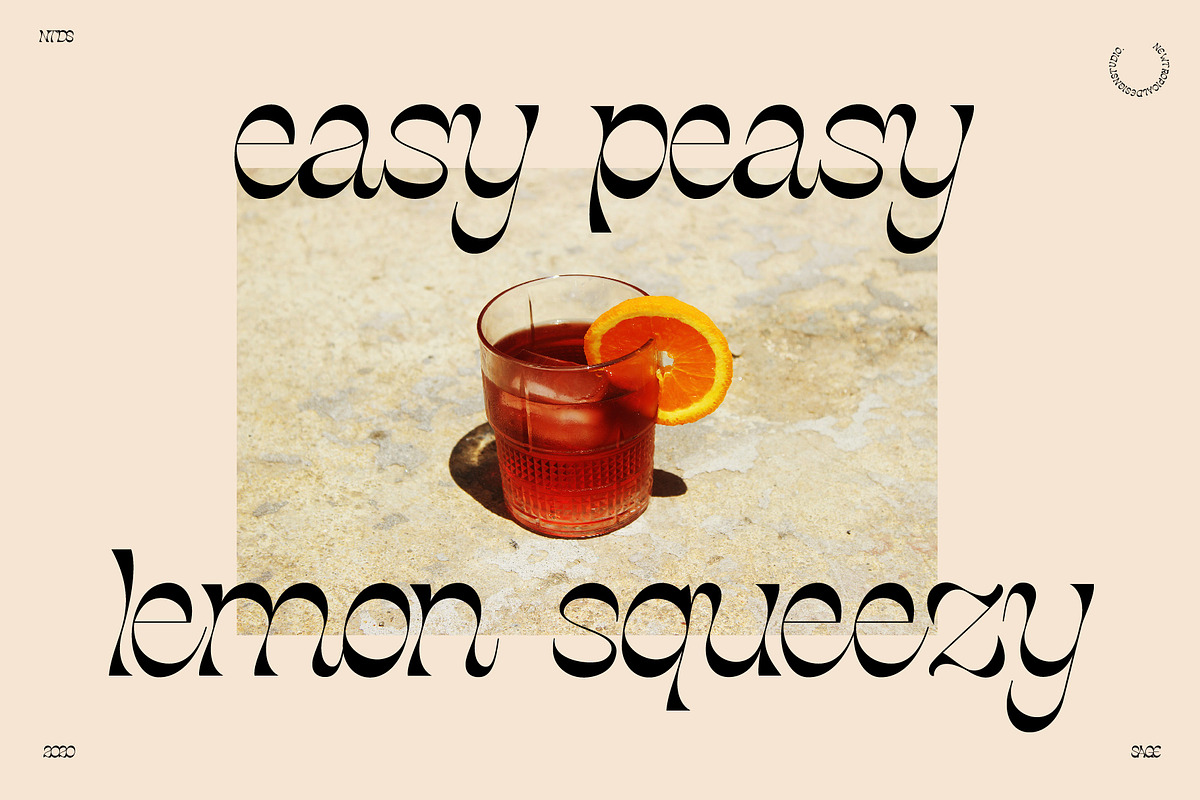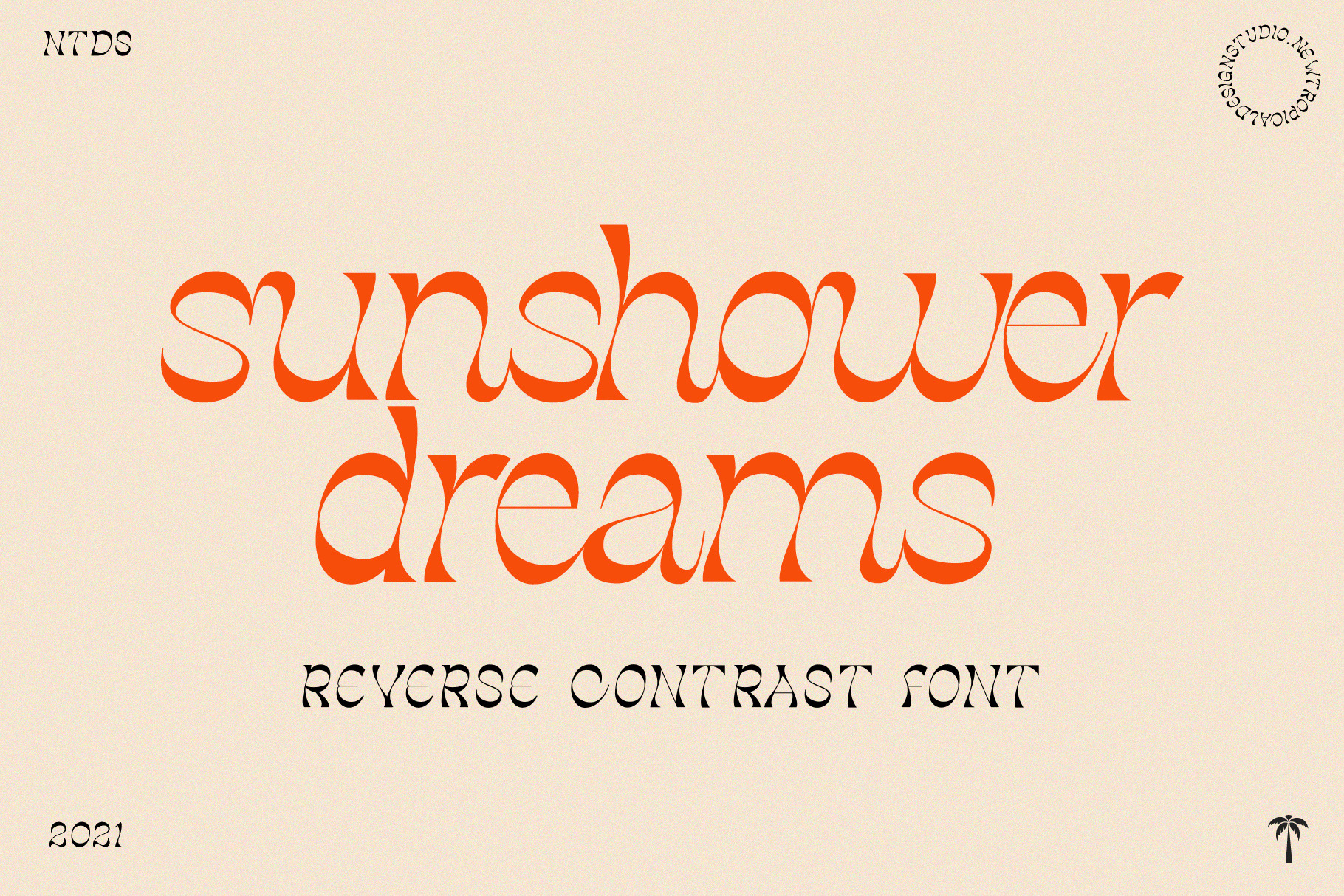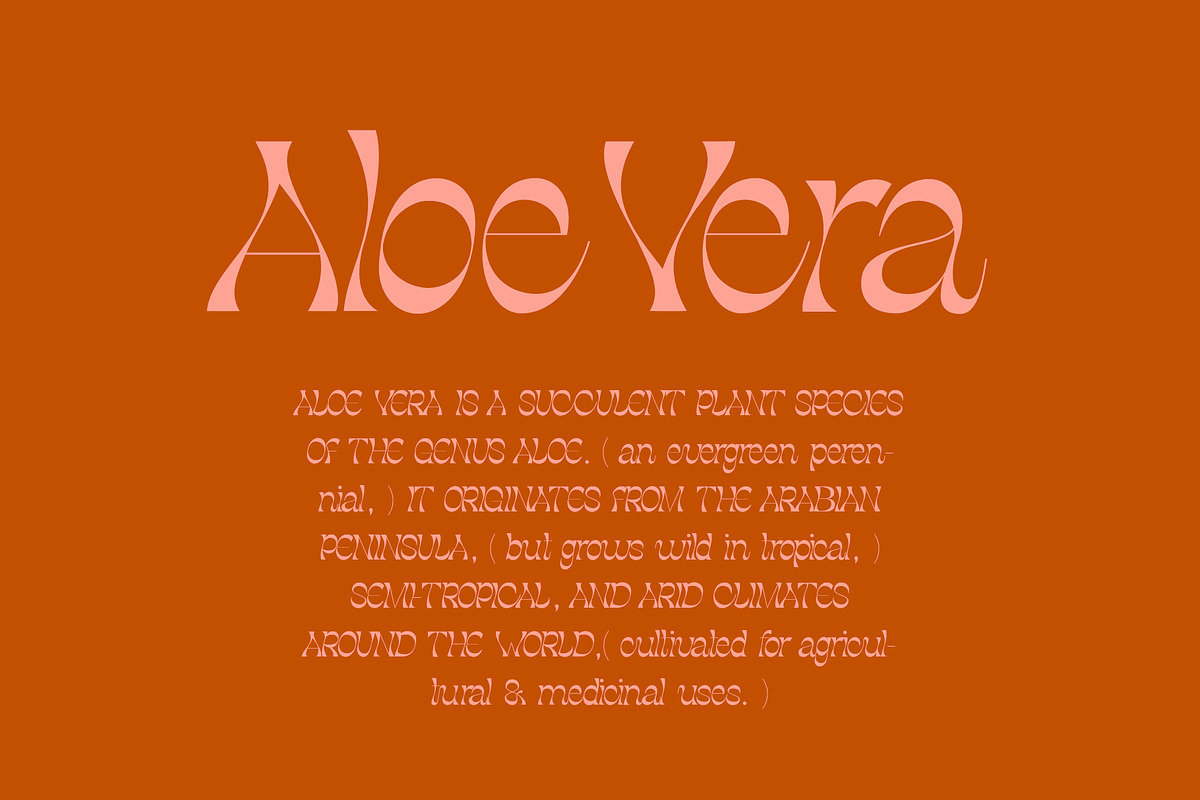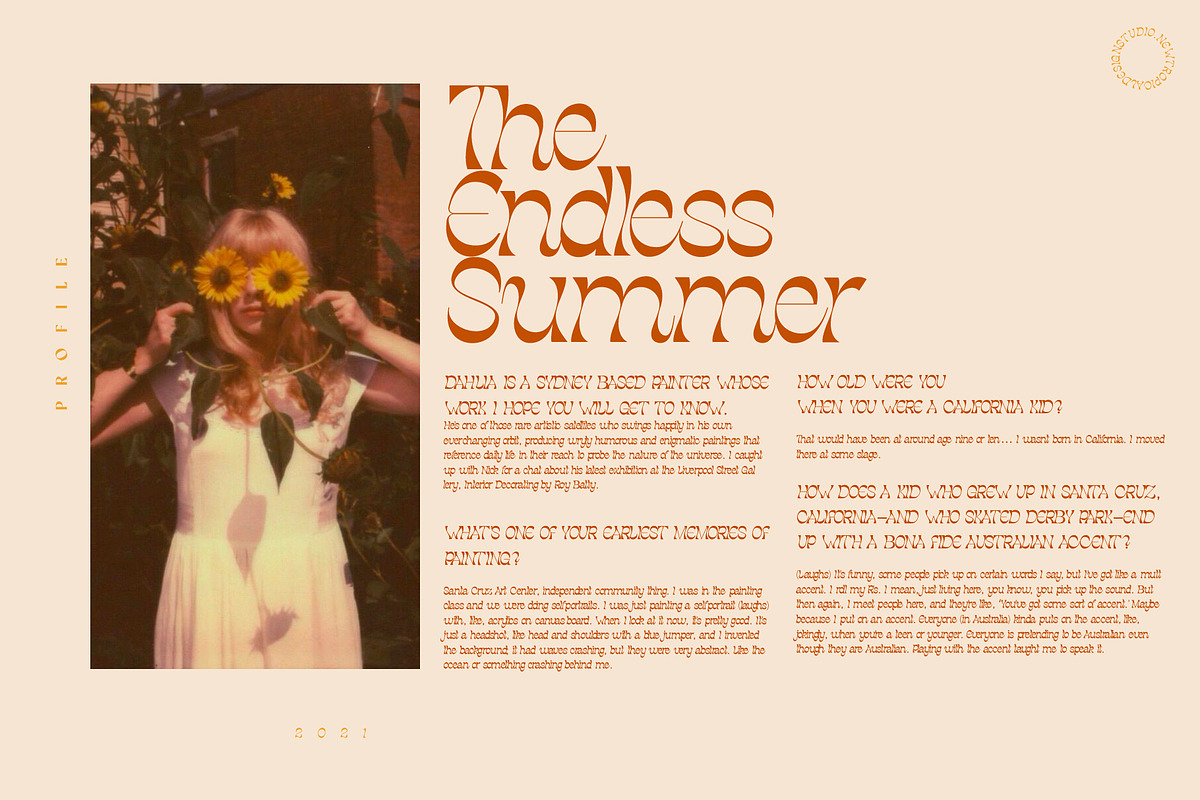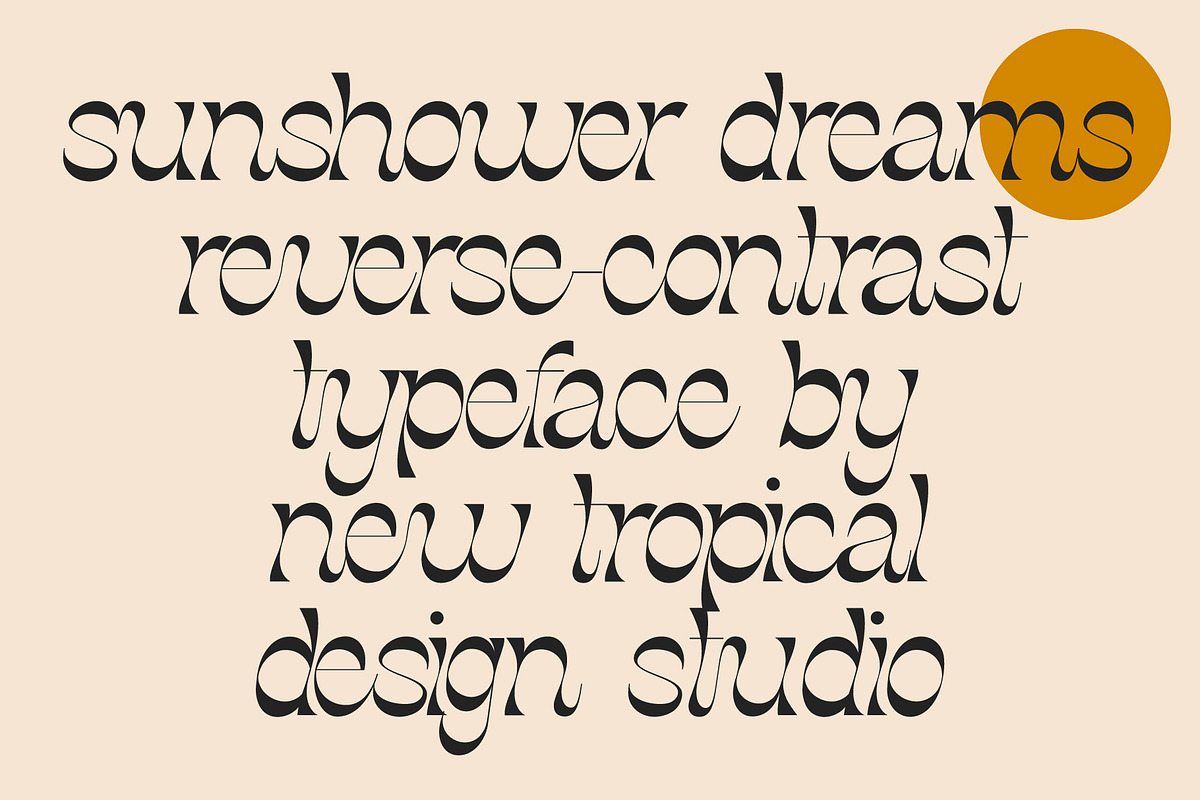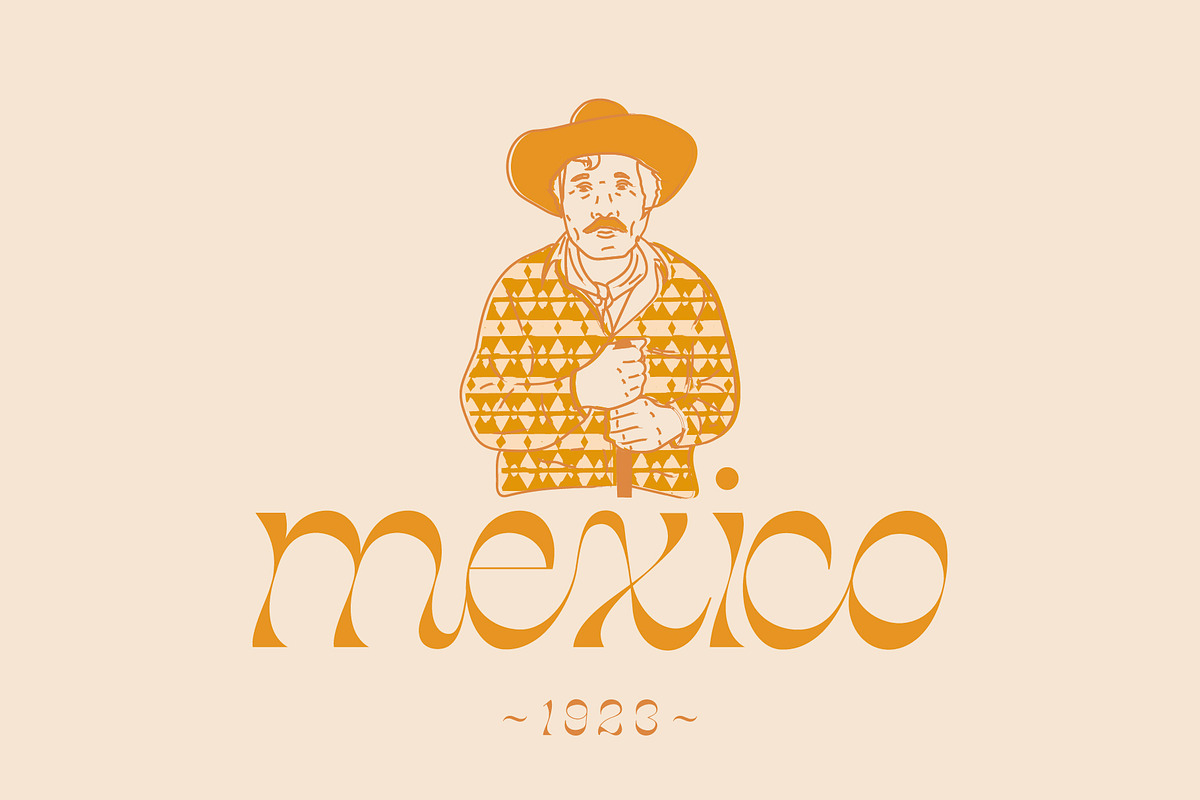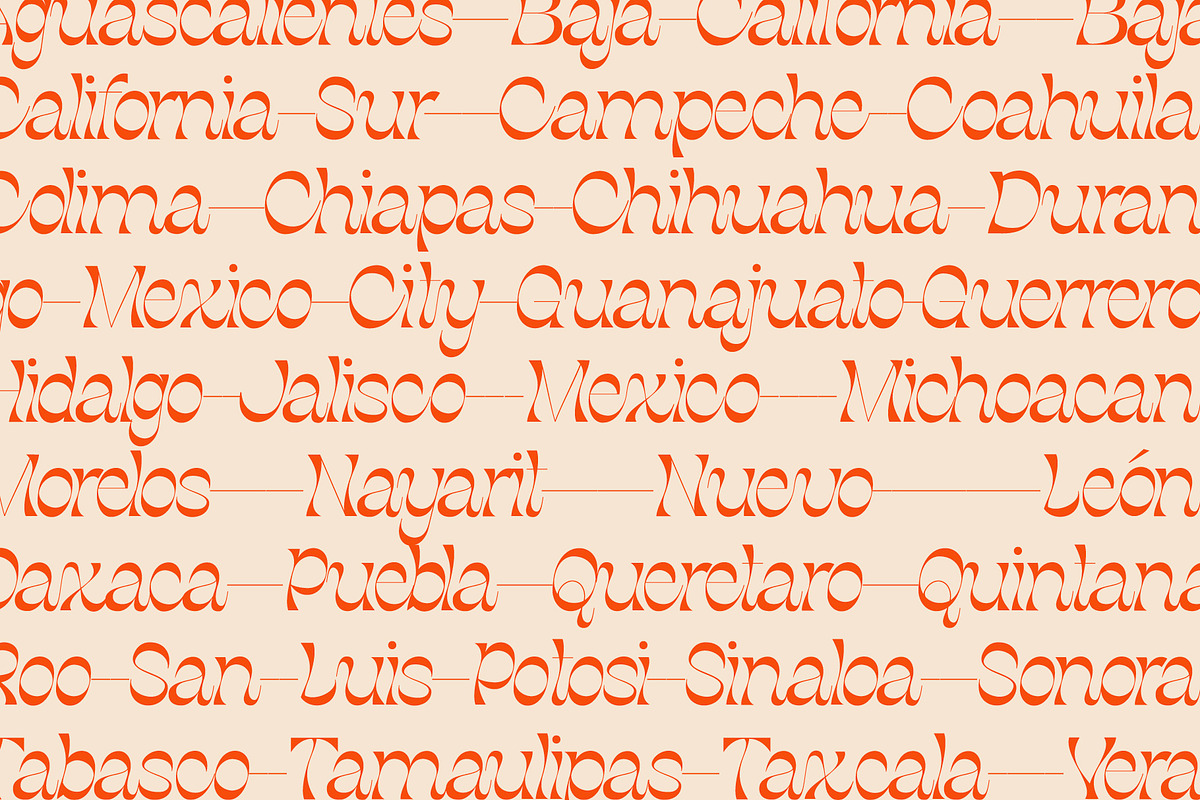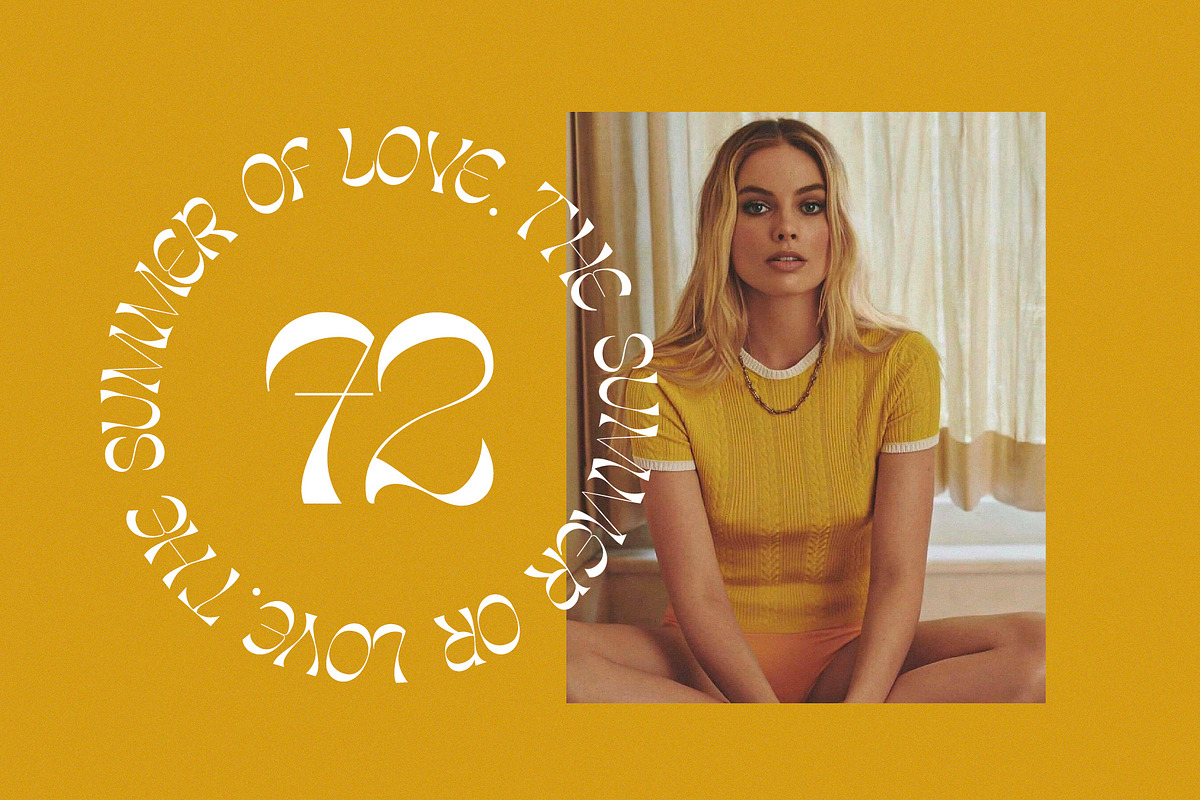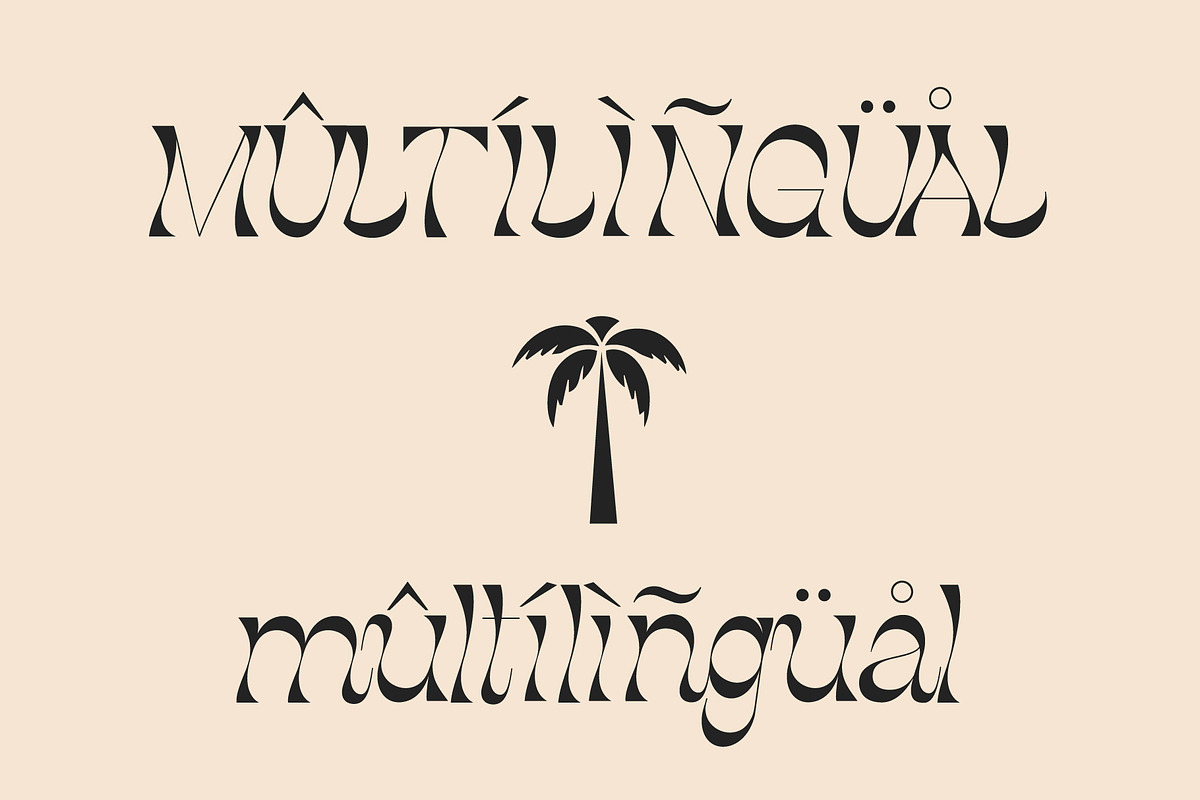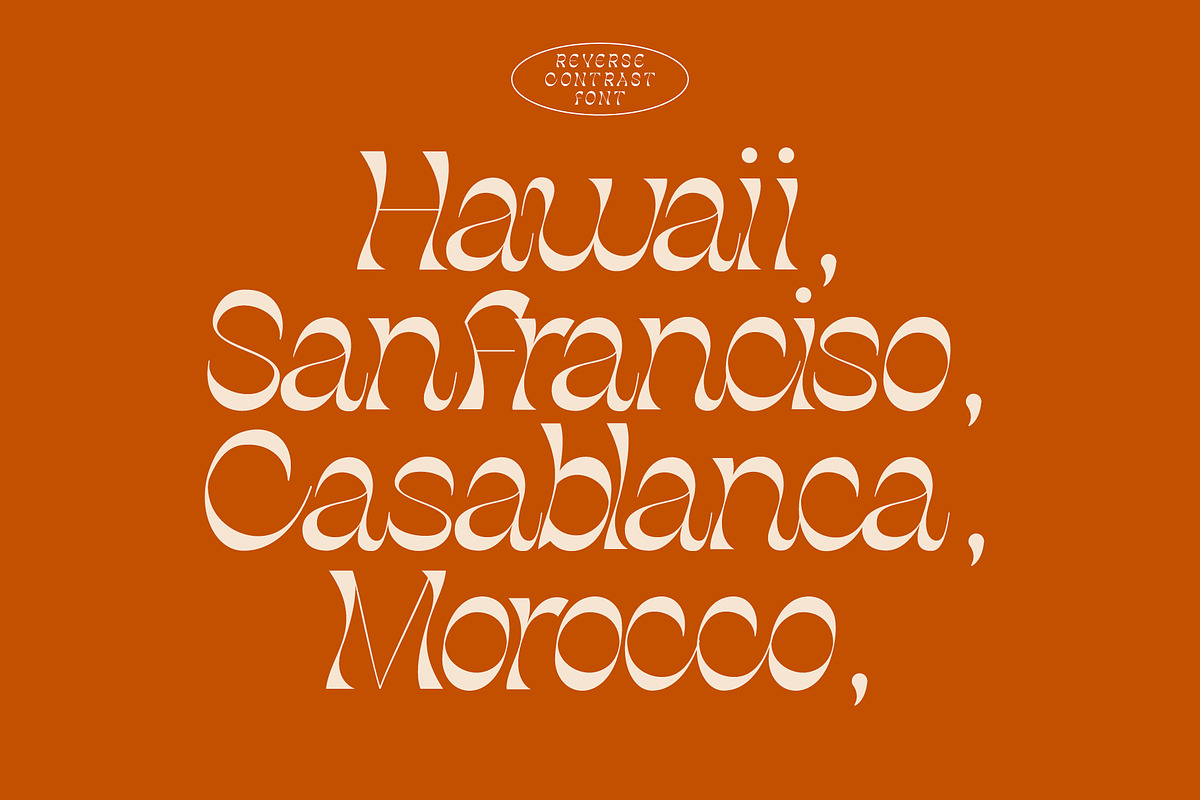
Sunshower Dreams - Exotic Font
Sunshower Dreams is an off axis reverse contrast font. An exotic and unique display of nostalgia. Crack a bottle of Tequila, put on a groovy record and get to work with these beautiful letters. Full Uppercase, Lowercase, Numbers, Multilingual and all that Jazz. Enjoy.